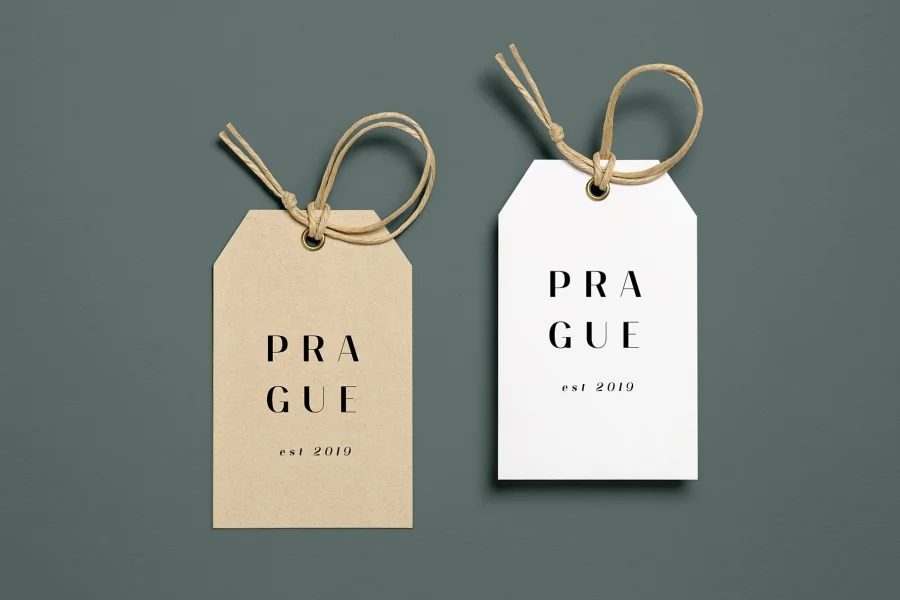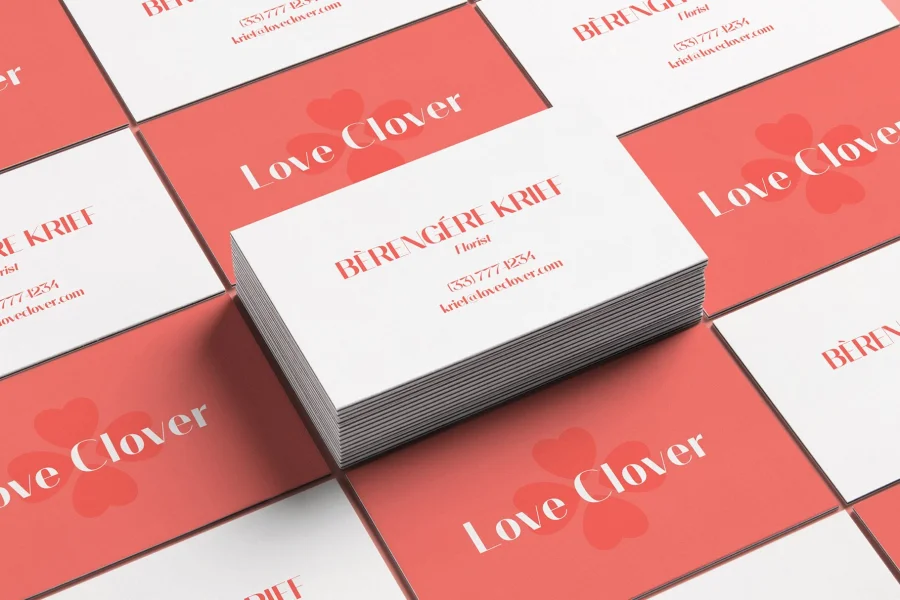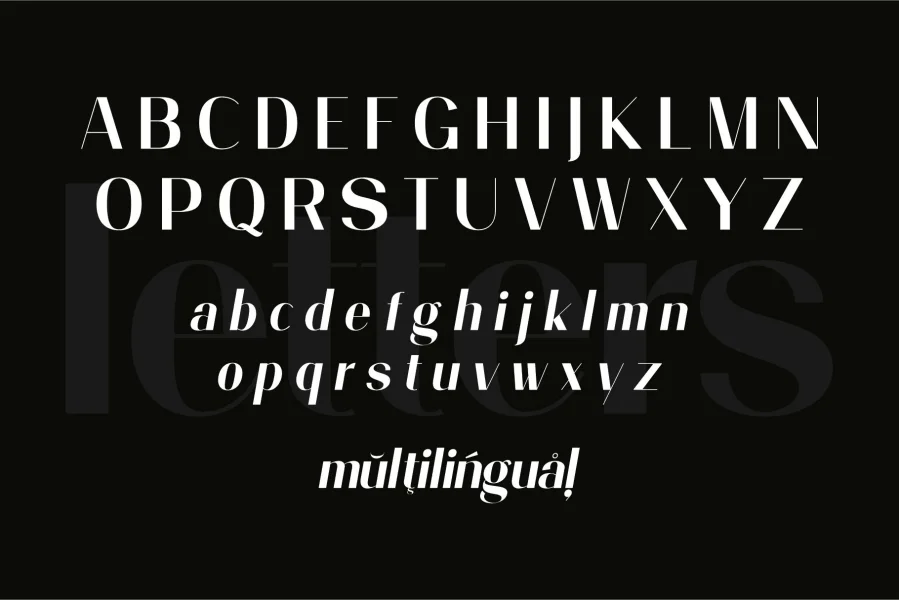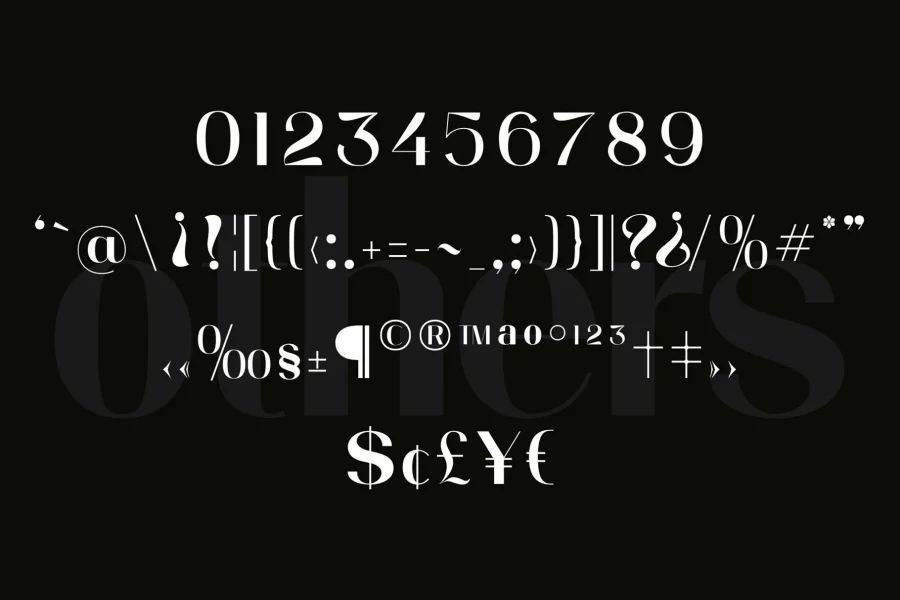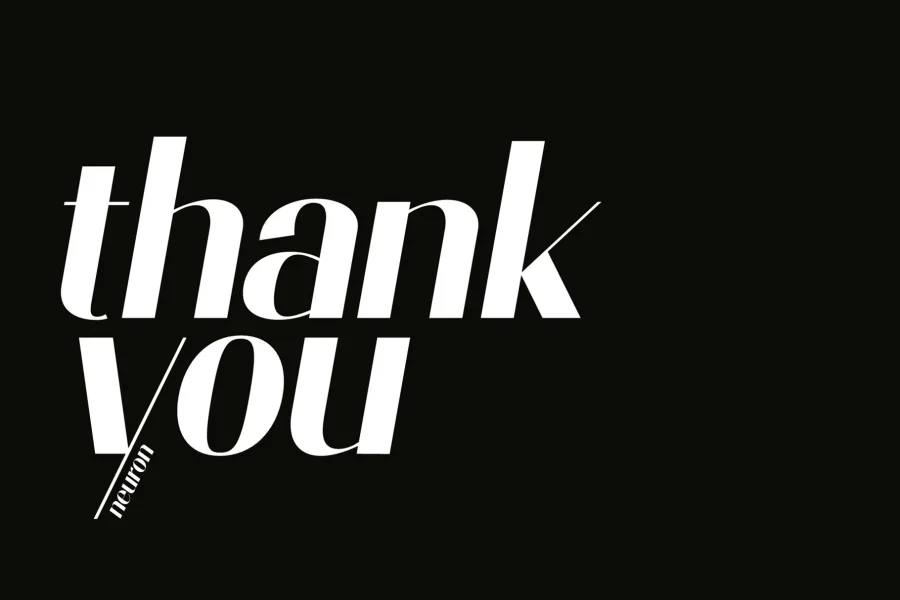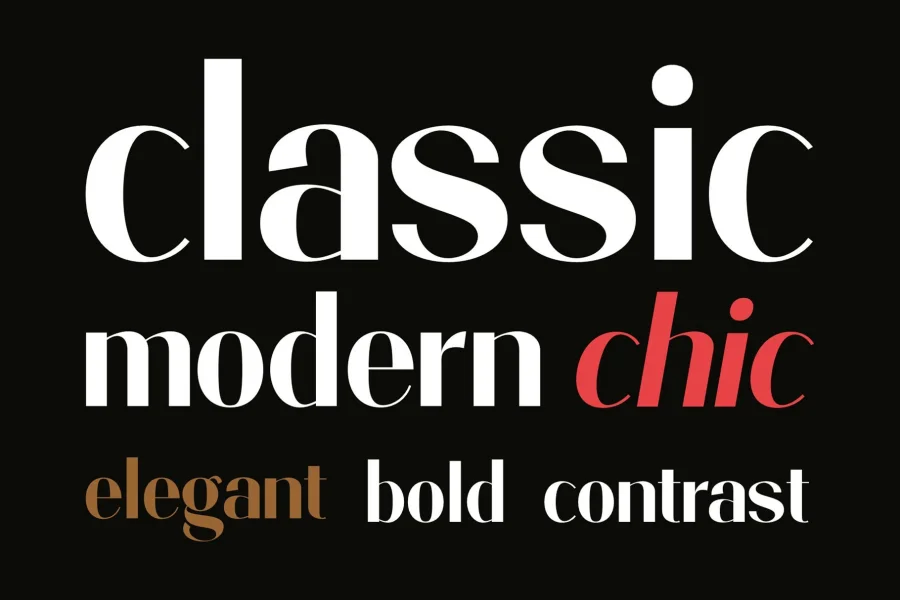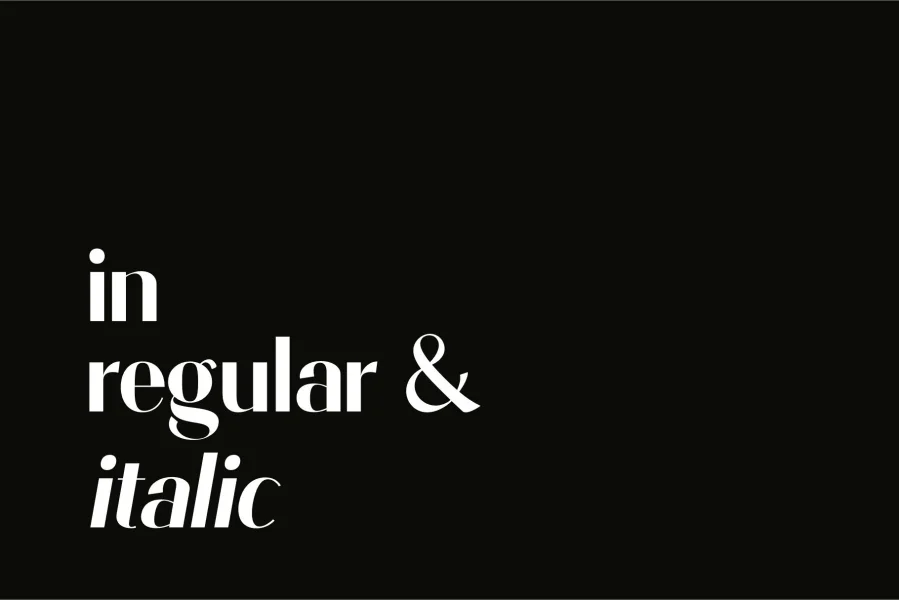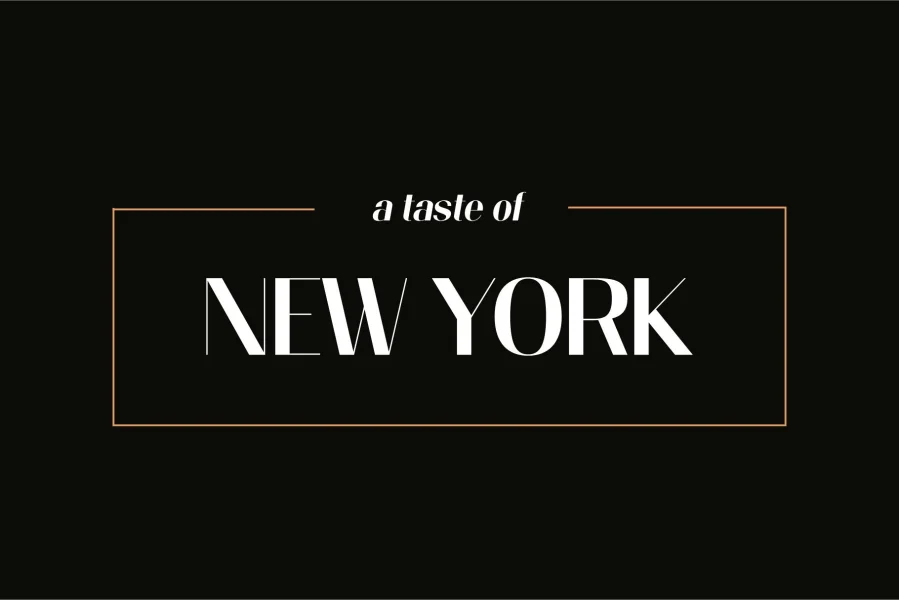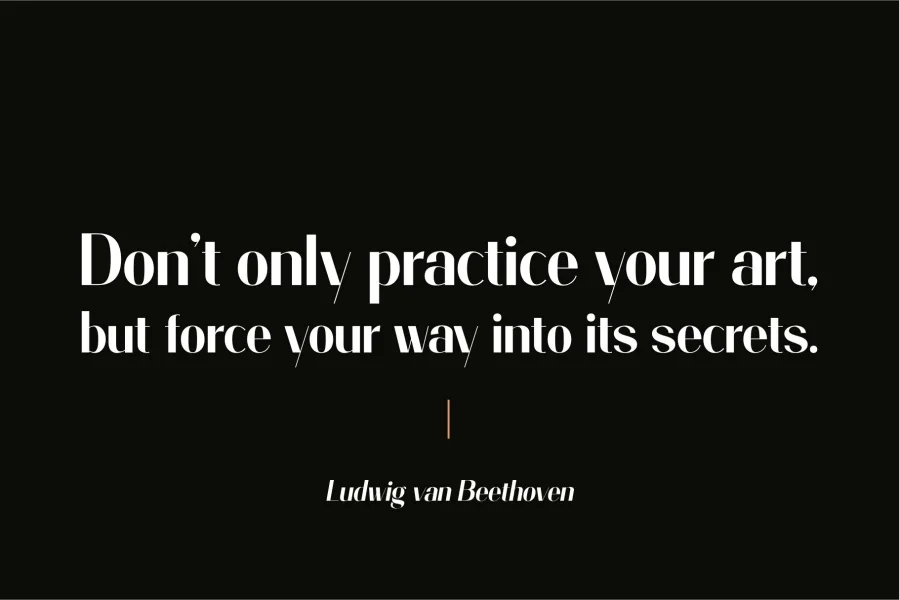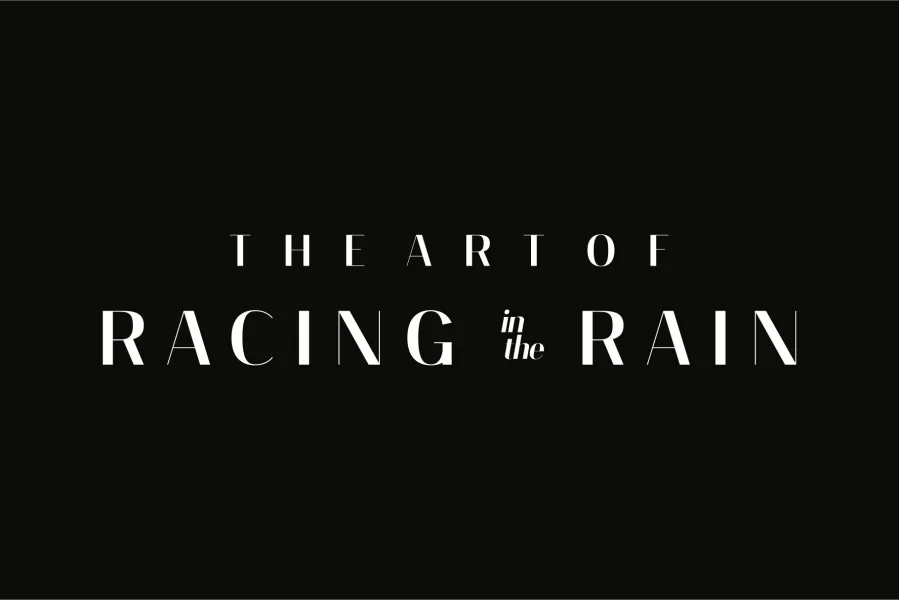
Prague is an elegant, classic, yet modern display font. Inspired by the beauty of the city, Prague aim to be one of sophisticated display font. It has clean and contrast, bold and chic. I've decided to remove 'serif' to give more modern feeling and more versatility. I'm very sure Prague has personality that can reflect your brand.